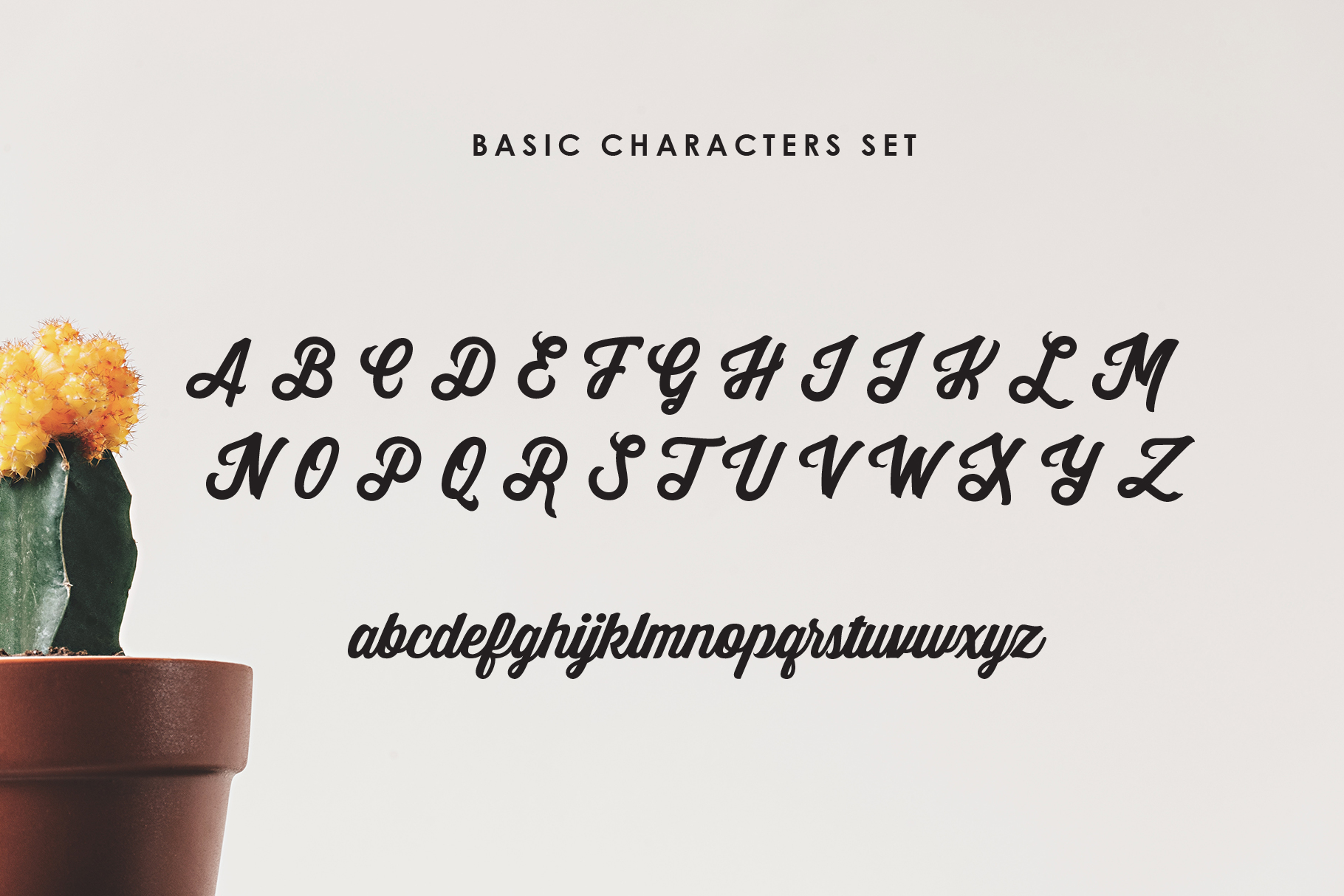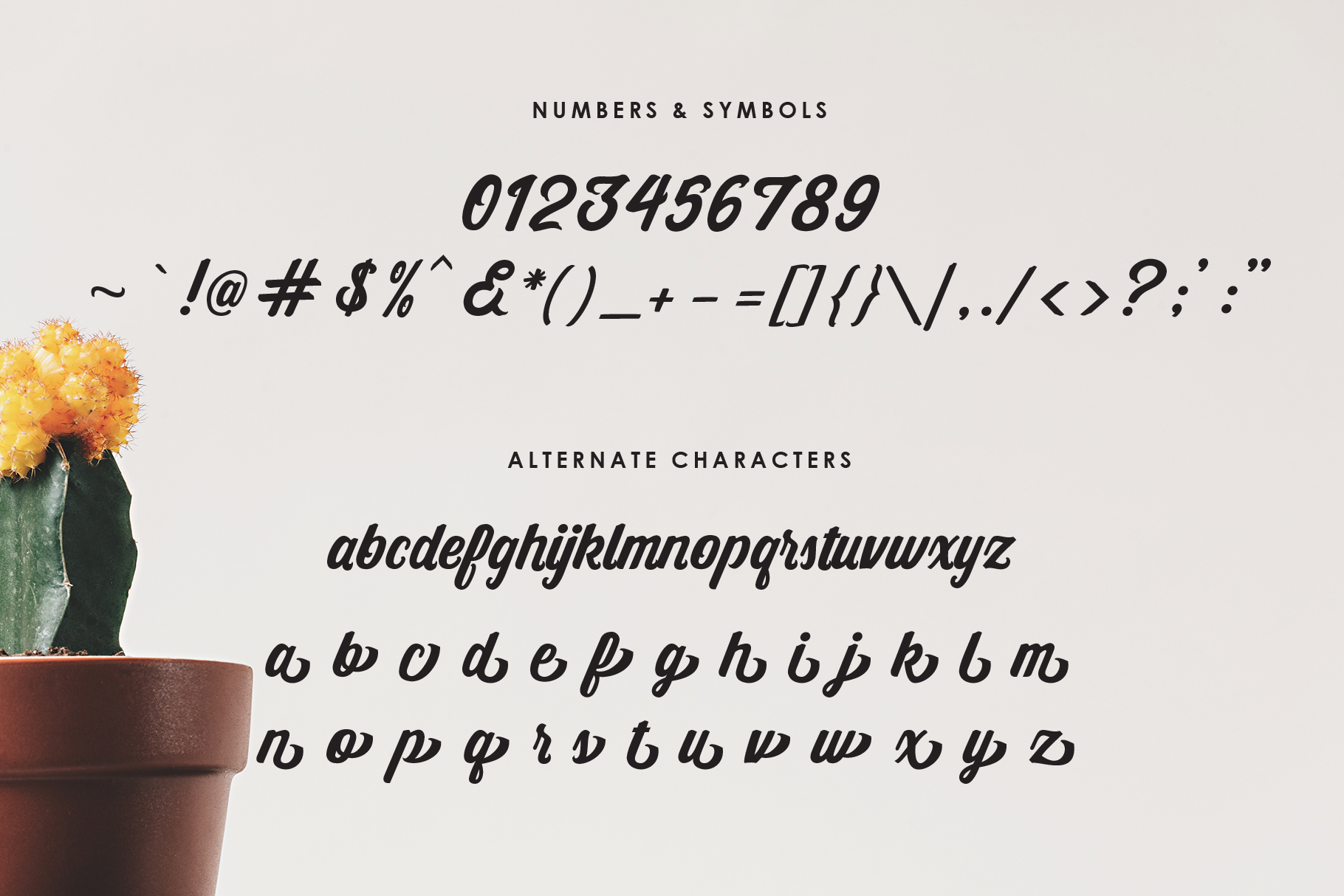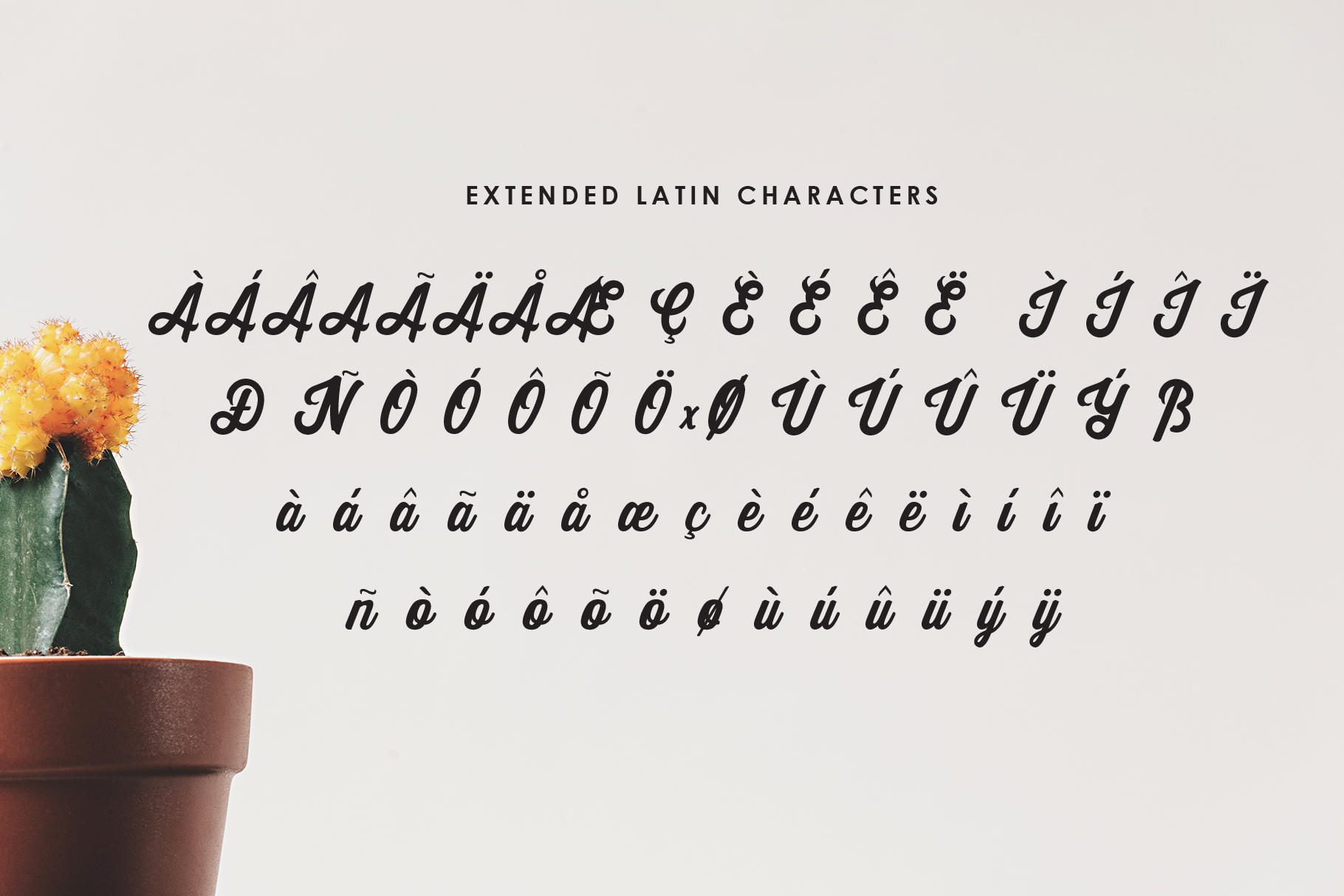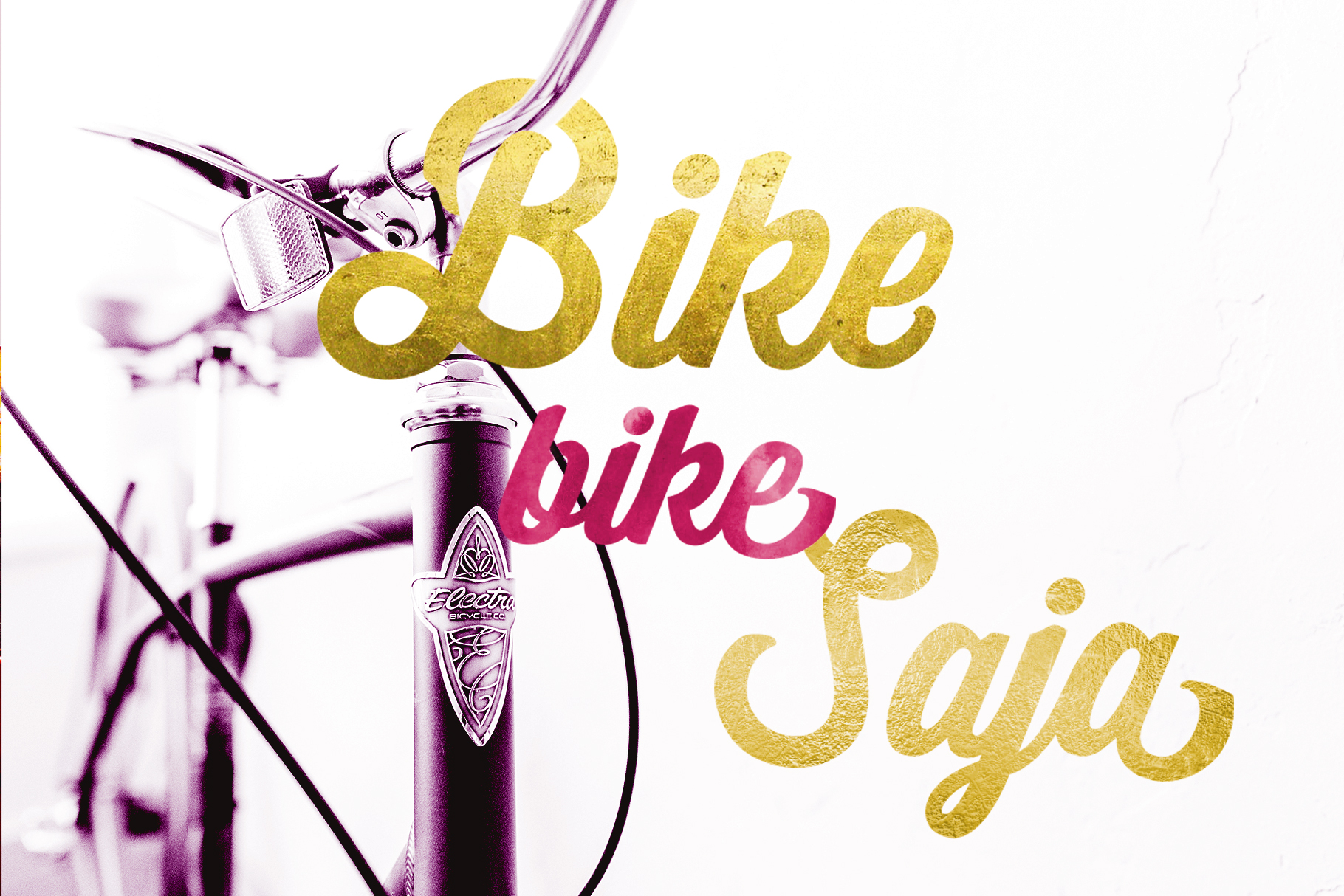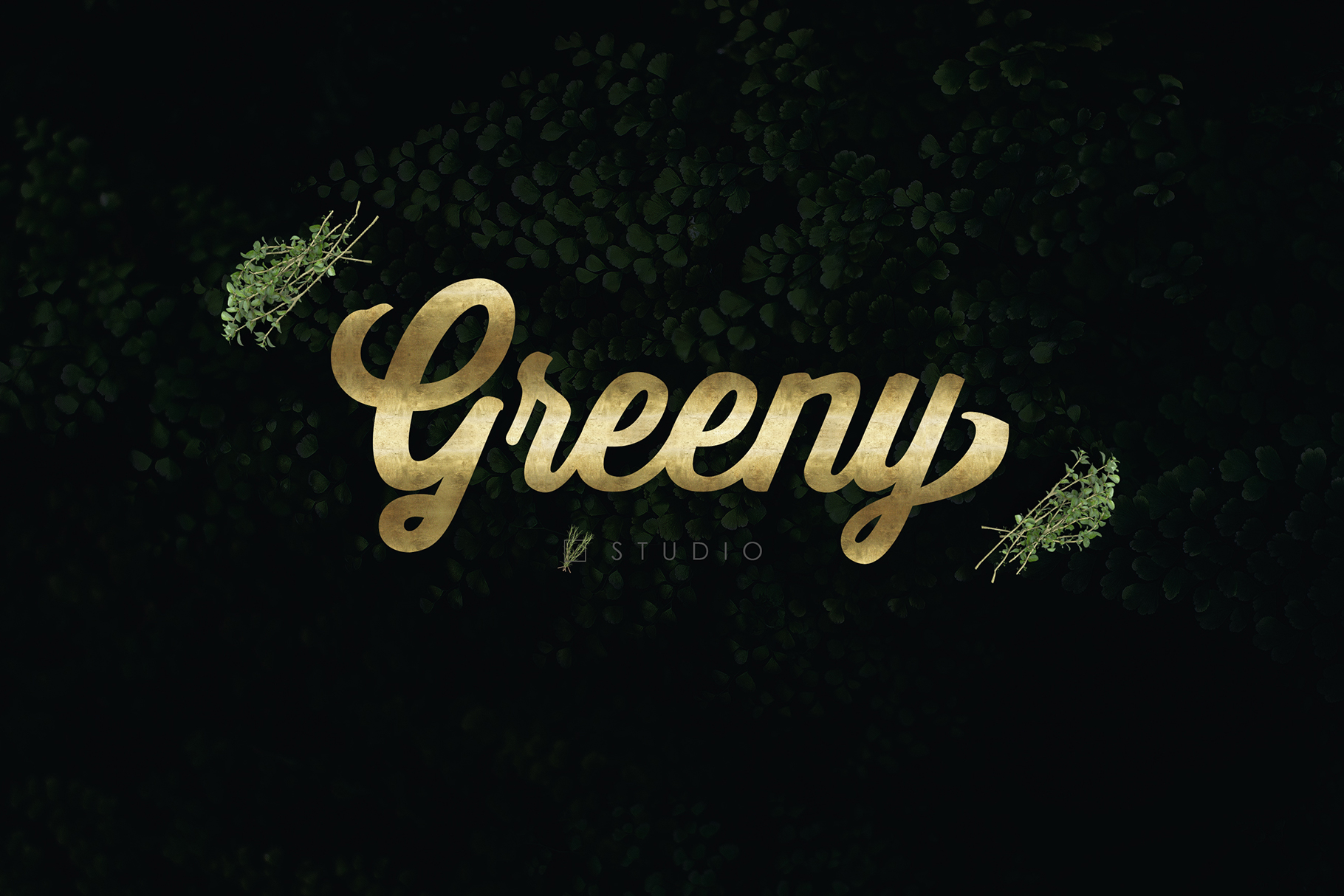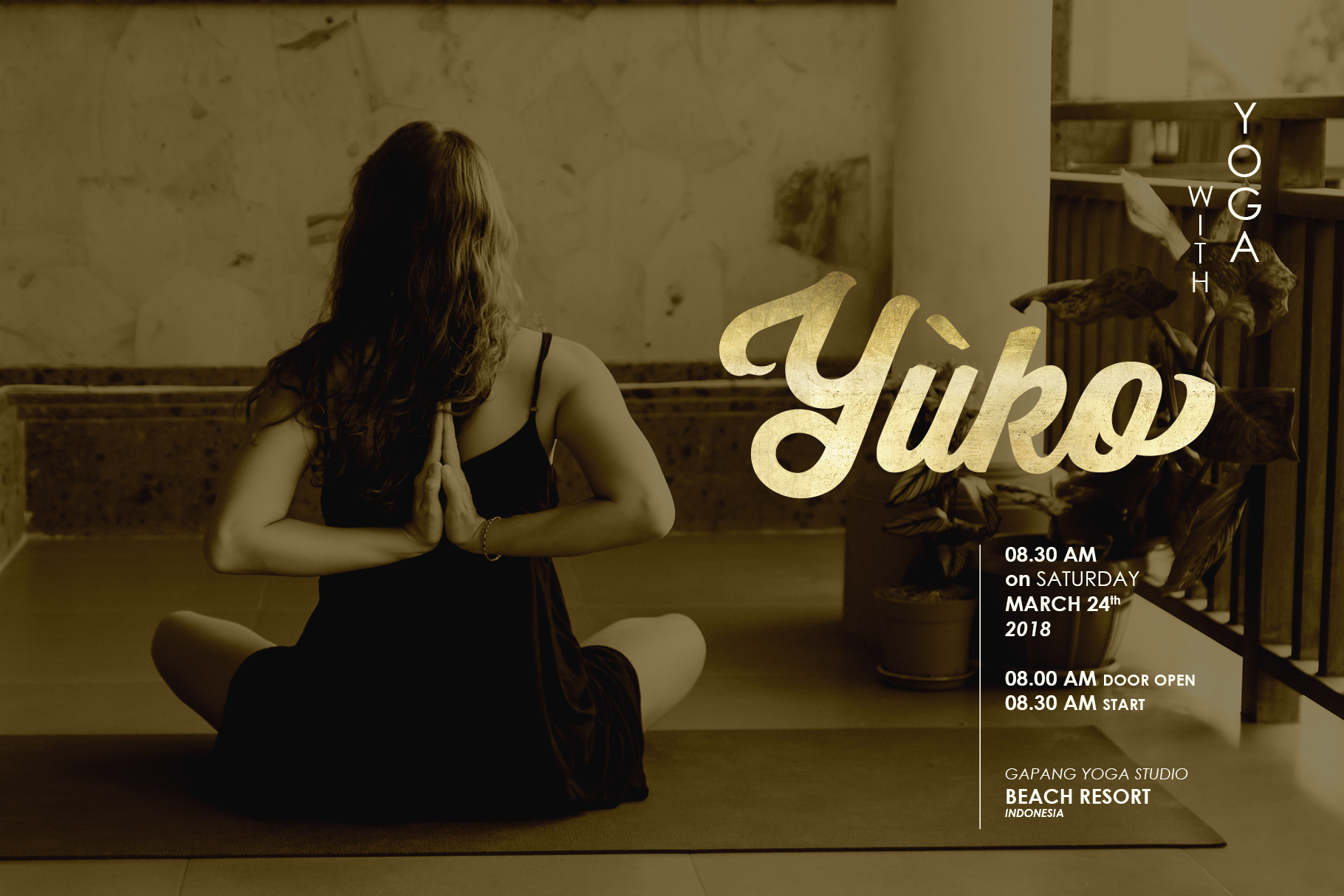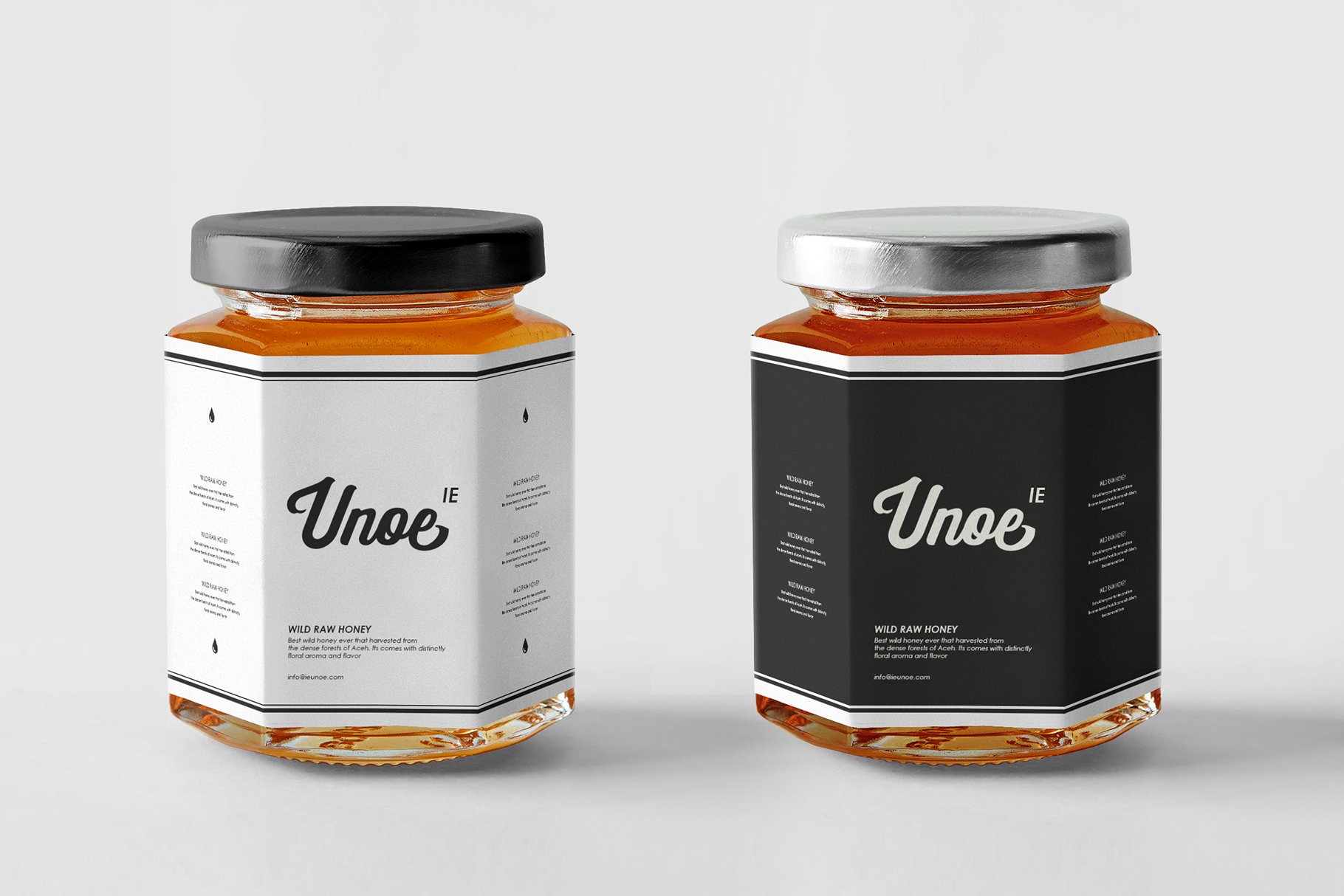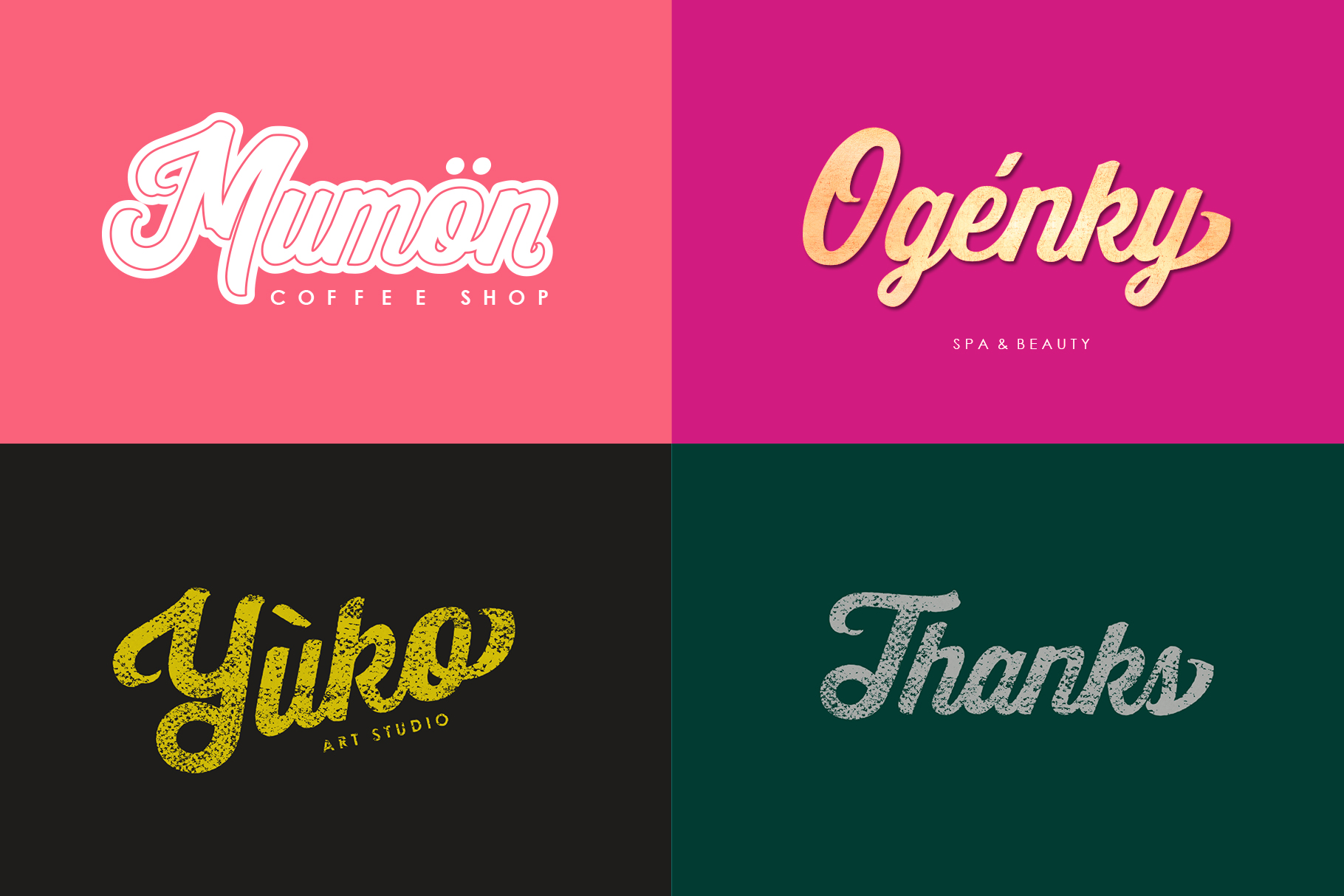
Yuko Font
About Yuko Font
Yuko is a stunning bold script that was created with attention to detail.
The Yuko font is a modern, casual typeface that comes with extended Latin characters. Take your creativity to the max by using this font in your projects. It works great for designs that are meant to have an impact on the viewer, such as apparel, magazines, headlines, product branding & packaging, display and much more.